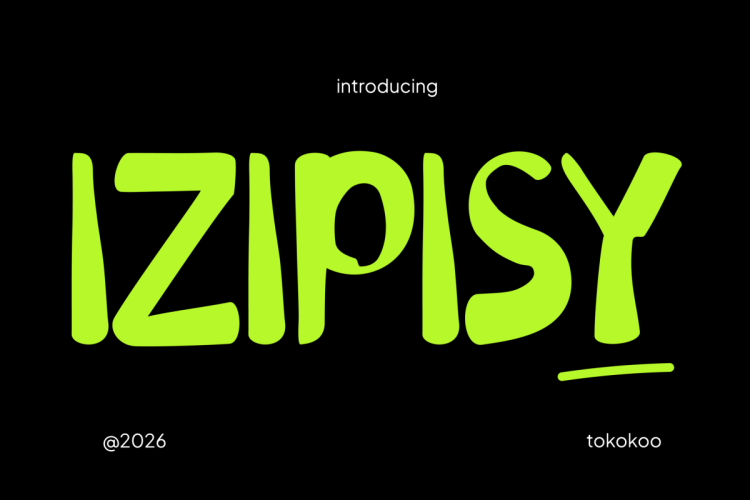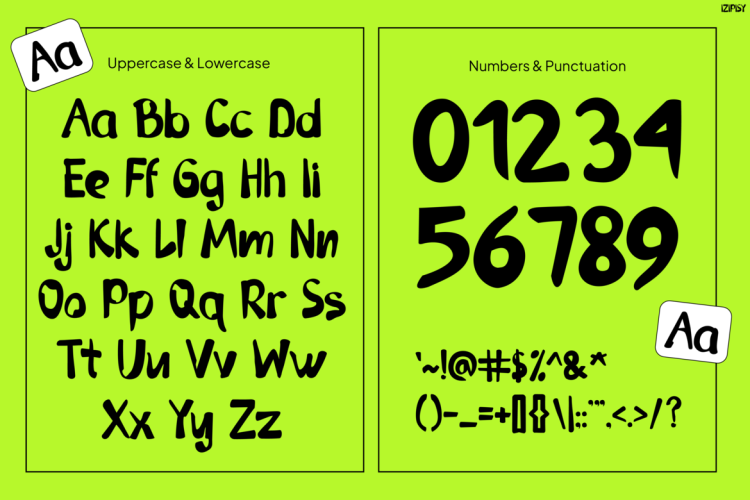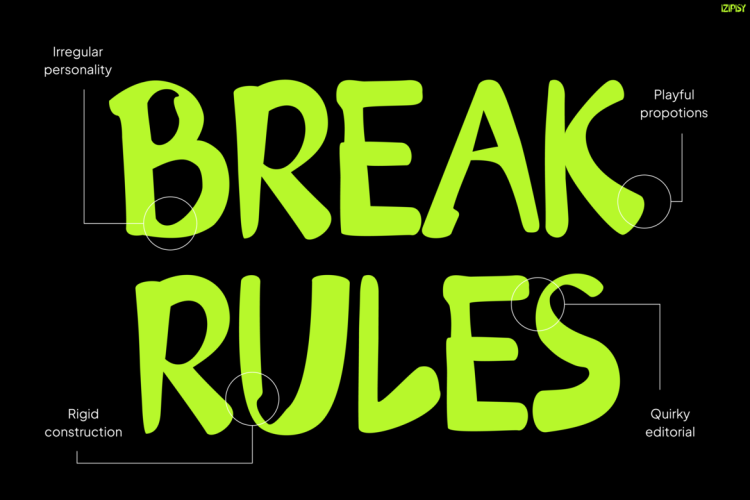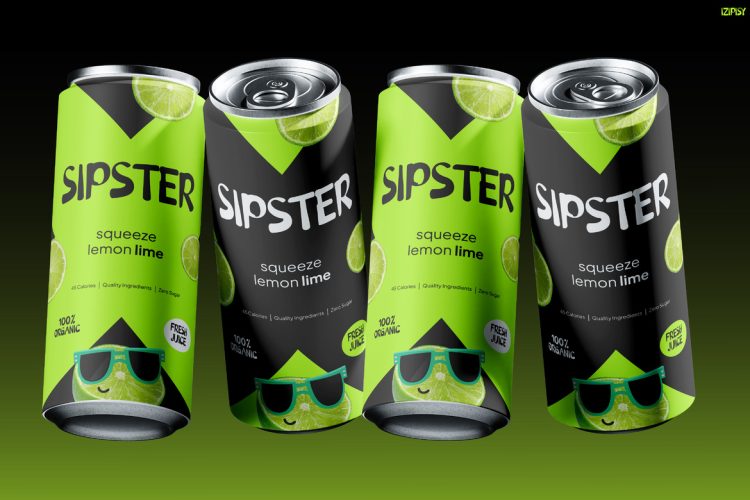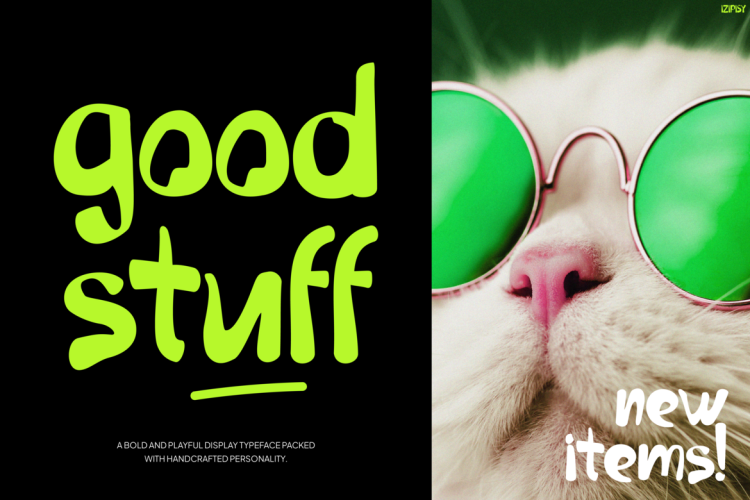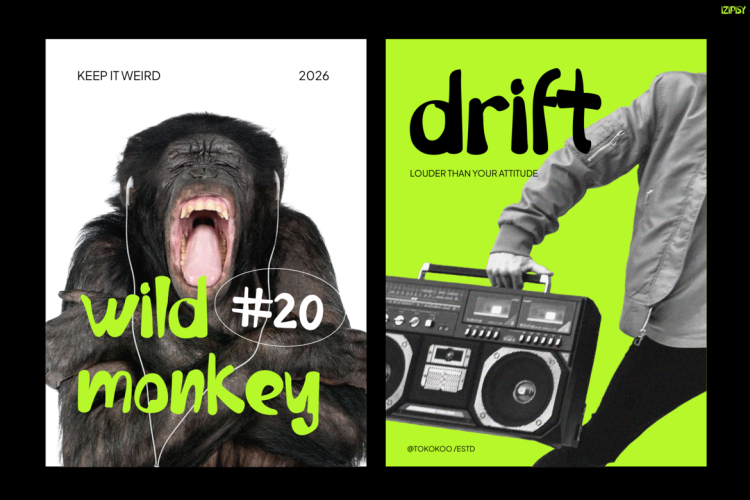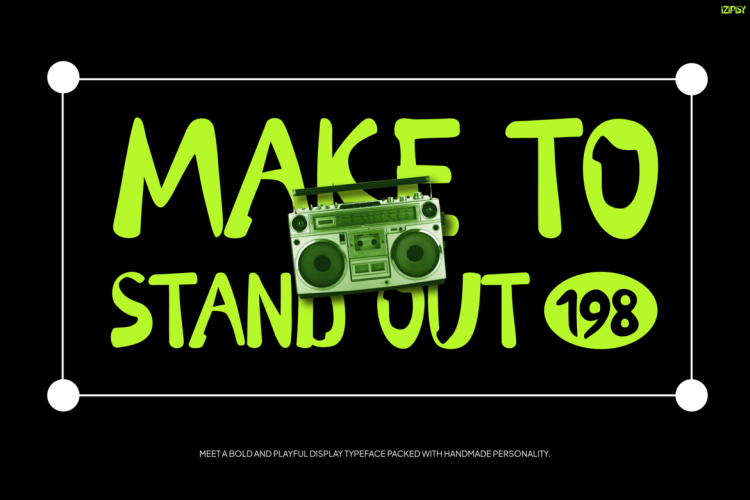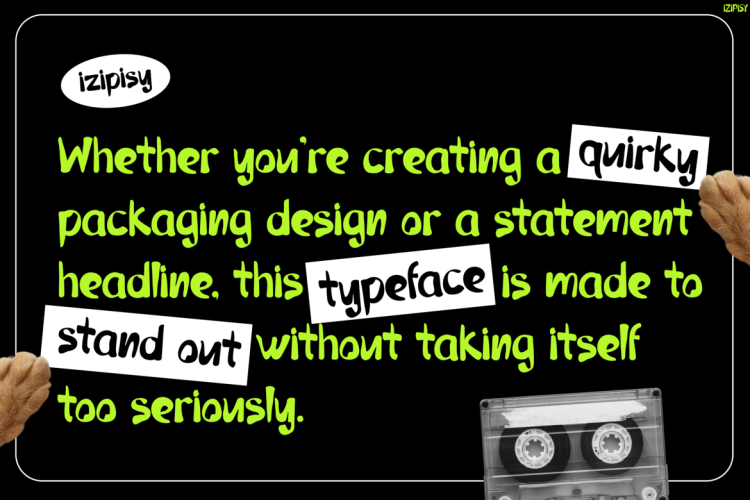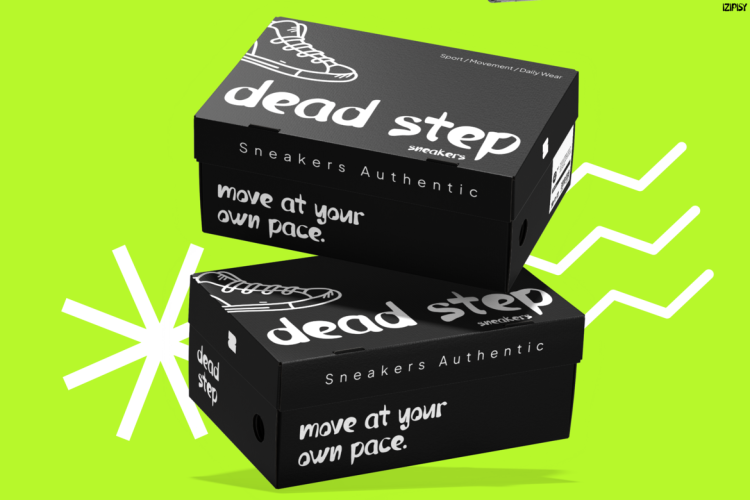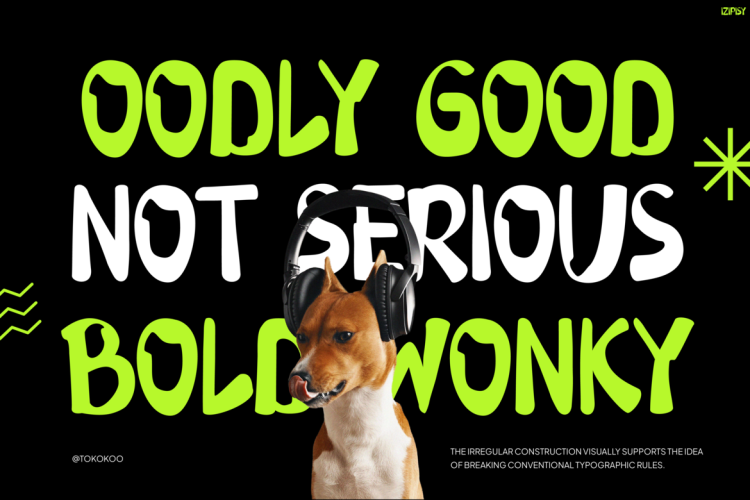
Izipisy โ Wild, Playful & Seriously Fun
Handwriting Font Izipisy is a quirky display typeface made to bring bold personality, playful energy, and a little bit of chaos to your designs. First of all, its irregular handwritten strokes create a naturally expressive look. At the same time, rounded curves and unexpected letter shapes give every word a fun, carefree attitude. Moreover, the chunky forms make headlines pop instantly, while the casual construction keeps the overall vibe friendly and approachable. In addition, Izipisy feels perfectly at home with edgy graphics, colorful packaging, lifestyle brands, and youth-focused visuals. As a result, simple words can become eye-catching statements. Furthermore, its distinctive character works especially well when you want your design to feel creative rather than overly polished. Therefore, Izipisy is a great pick for projects that dare to break the rules.
Handwriting Font Izipisy Perfect For
Izipisy is built for creators who want typography with attitude and personality. For example, it works brilliantly for quirky packaging, streetwear graphics, stickers, posters, social media content, product branding, album artwork, cafรฉ promotions, and creative campaigns. Likewise, its playful appearance fits youth brands and lifestyle projects beautifully. Additionally, the bold letterforms remain highly visible in headlines and short messages. Consequently, your designs can feel more energetic and memorable. Meanwhile, Izipisy pairs nicely with illustrations, photos, colorful layouts, and modern graphic elements.
Who Can Use It?
- Youth & Lifestyle Brands
- Streetwear Designers
- Creative Agencies
- Packaging Designers
- Social Media Creators
- Sticker & Merchandise Shops
- Cafรฉ & Food Brands
- Poster Designers
- Graphic Designers
Break the Rules with Handwriting Font Izipisyย Izipisy
If ordinary typography feels too serious, Handwriting Font Izipisy is ready to shake things up. So, add its bold handwritten personality to your creative collection today. Not only will it make your headlines stand out, but it will also give your brand a fresh, playful voice. Ultimately, Izipisy turns simple typography into something weird, fun, and impossible to ignore.